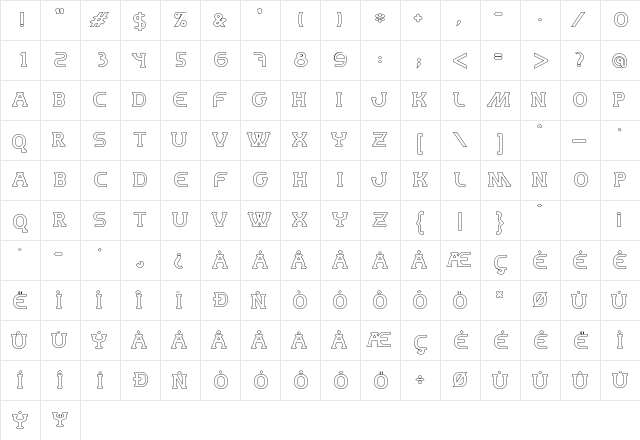
MastumHollow Regular
| Foundry | Xerographer Fonts |
| Designer | Max Infeld - Xerographer Fonts |
Design Context for MastumHollow Typeface
MastumHollow takes a measured approach to typography — its balanced proportions and neutral character make it a reliable workhorse for both digital and print work.